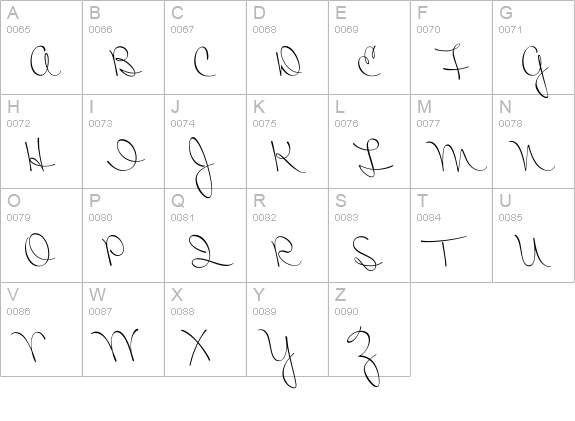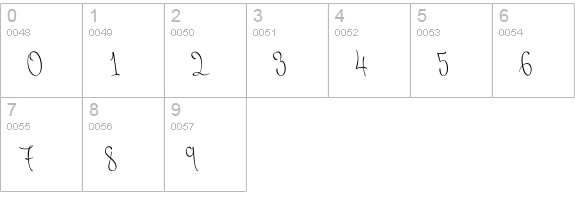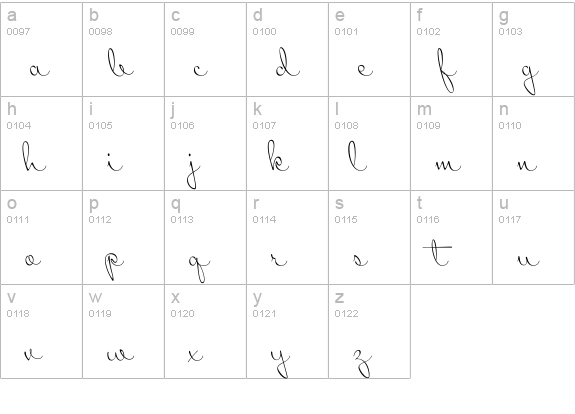
Mr Sopkin Font Details
Mr Sopkin font is a timeless and elegant typeface that exudes sophistication and charm. With its classic yet modern design, this font is perfect for a wide range of projects, from branding to invitations to editorial design. Its clean lines and subtle curves make it a versatile choice for any creative endeavor. What's even better is that Mr Sopkin font is completely free to download at FontsMarket.com. Yes, you read that right - you can elevate your designs with this gorgeous font without spending a penny. So why wait? Head over to FontsMarket.com and add Mr Sopkin font to your collection today!